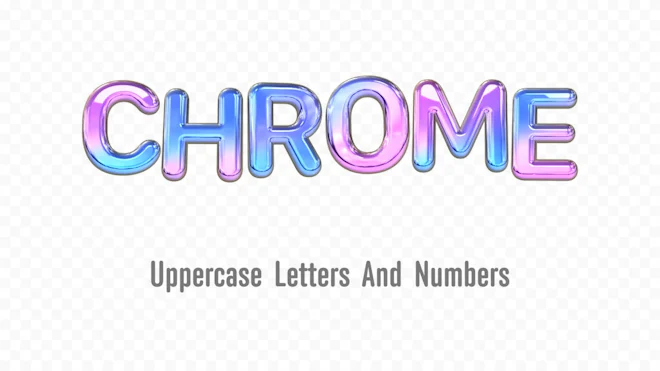
This stock motion graphics video pack includes 36 clips of iridescent uppercase letters and numbers on a transparent alpha channel in a seamless loop.